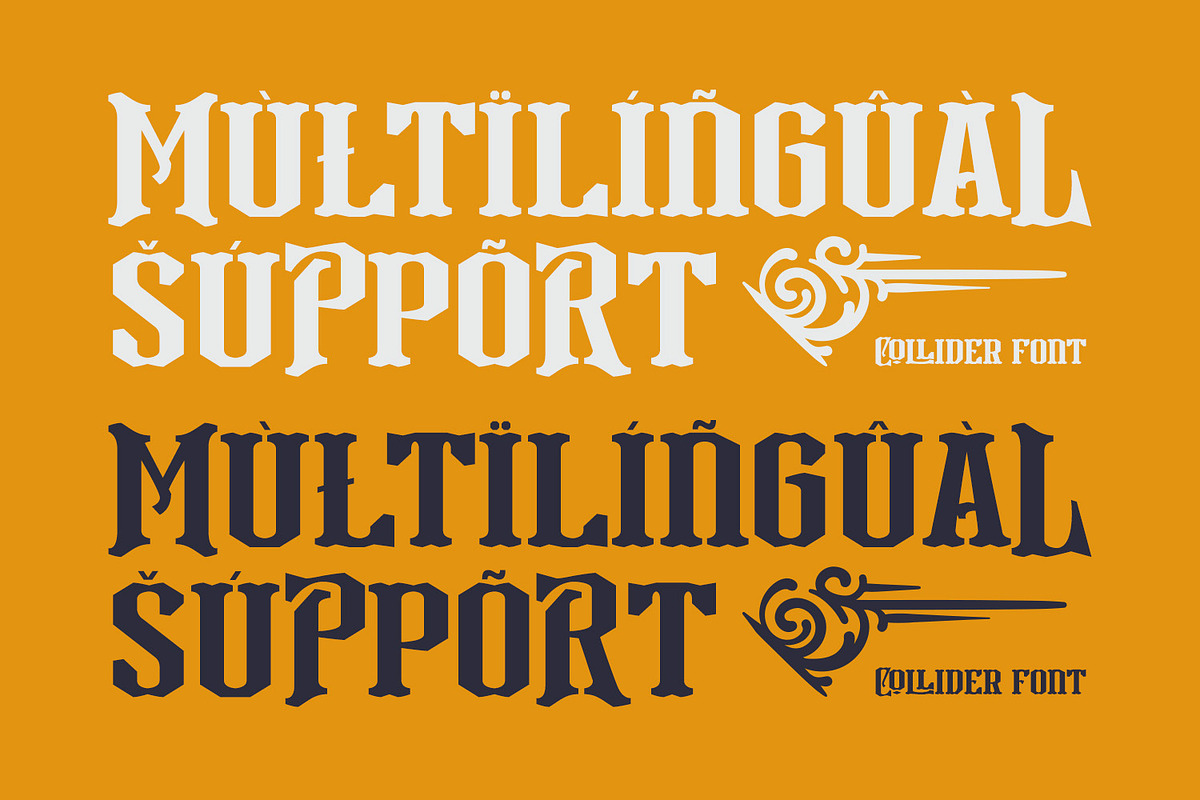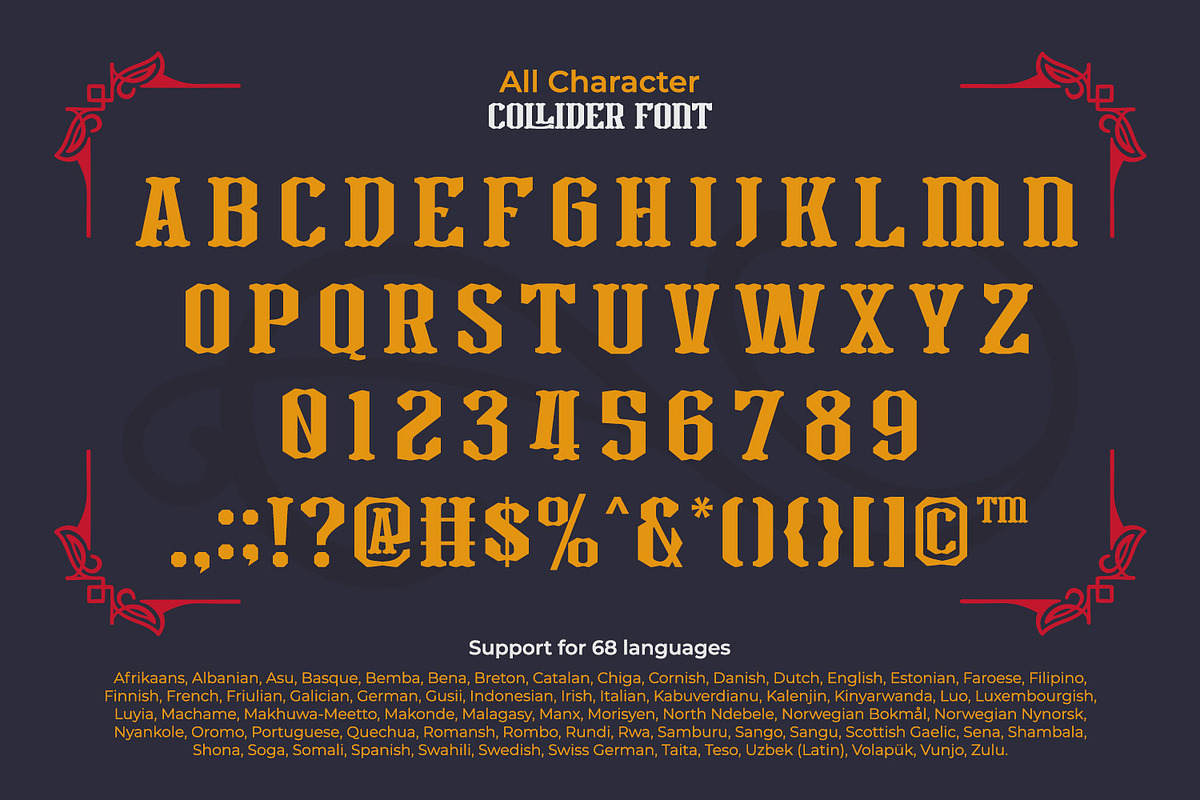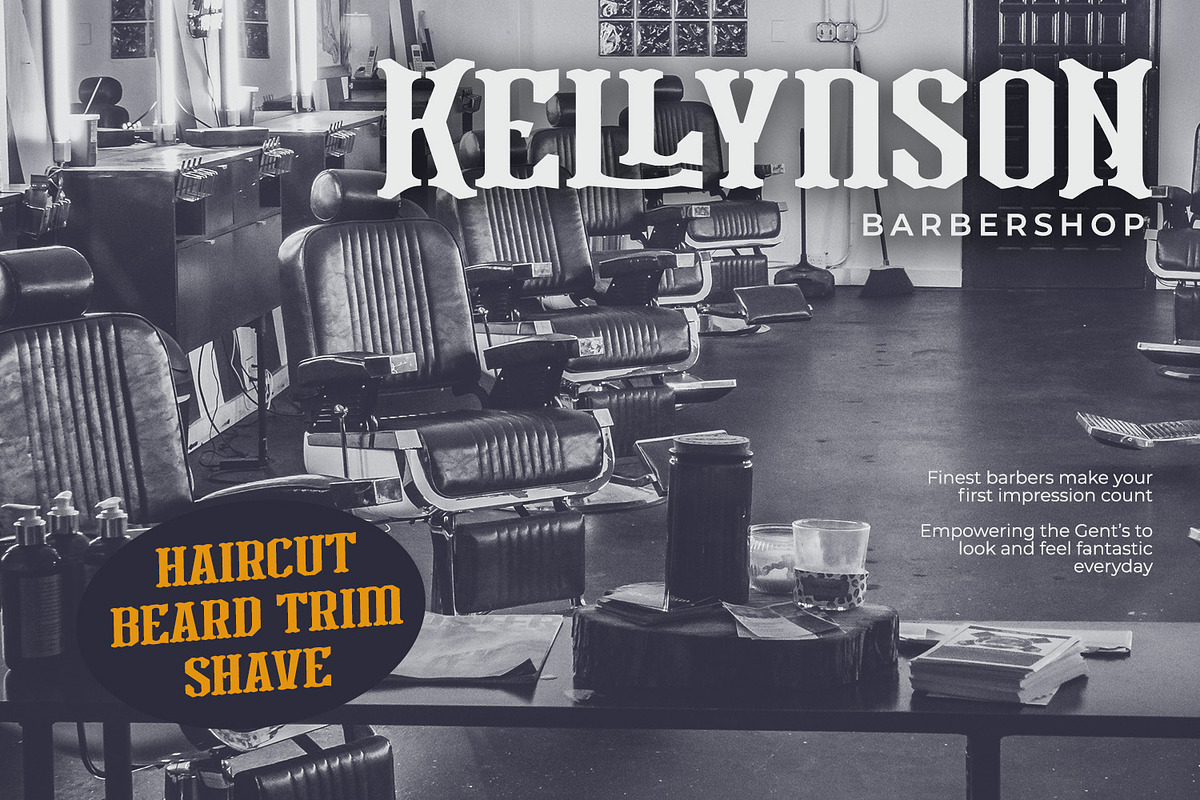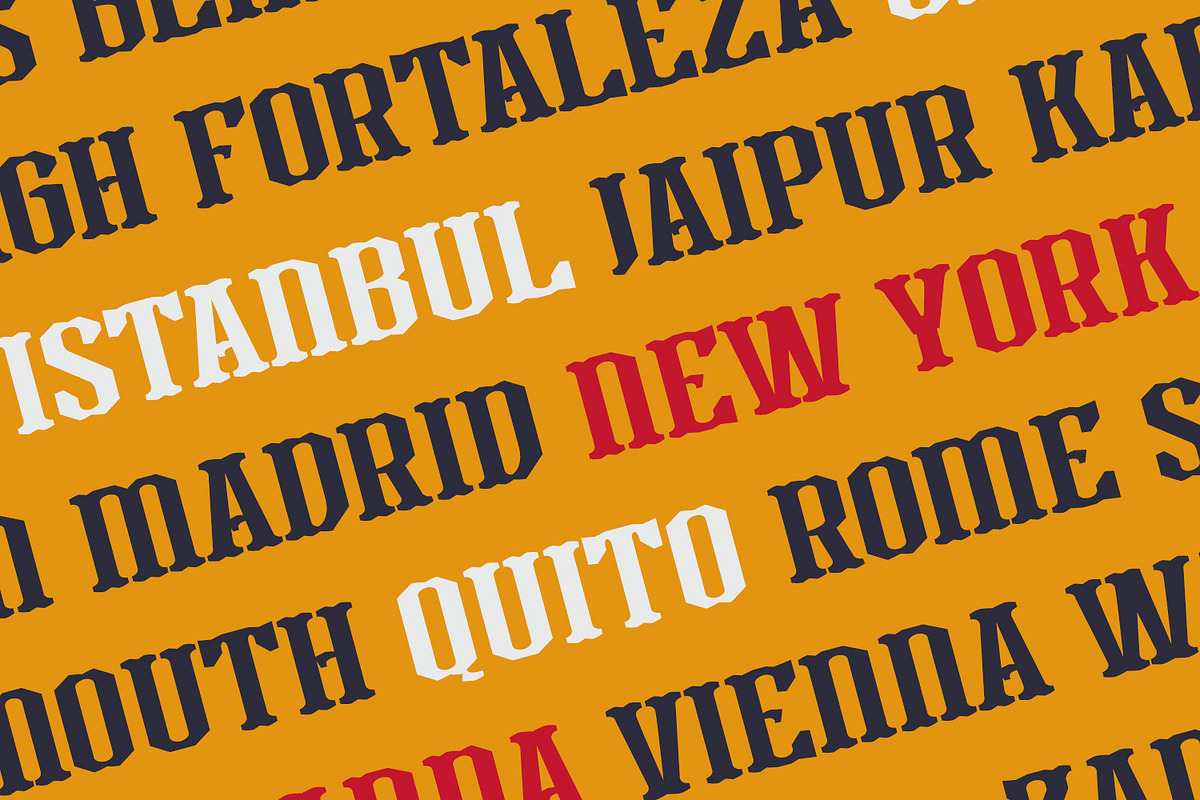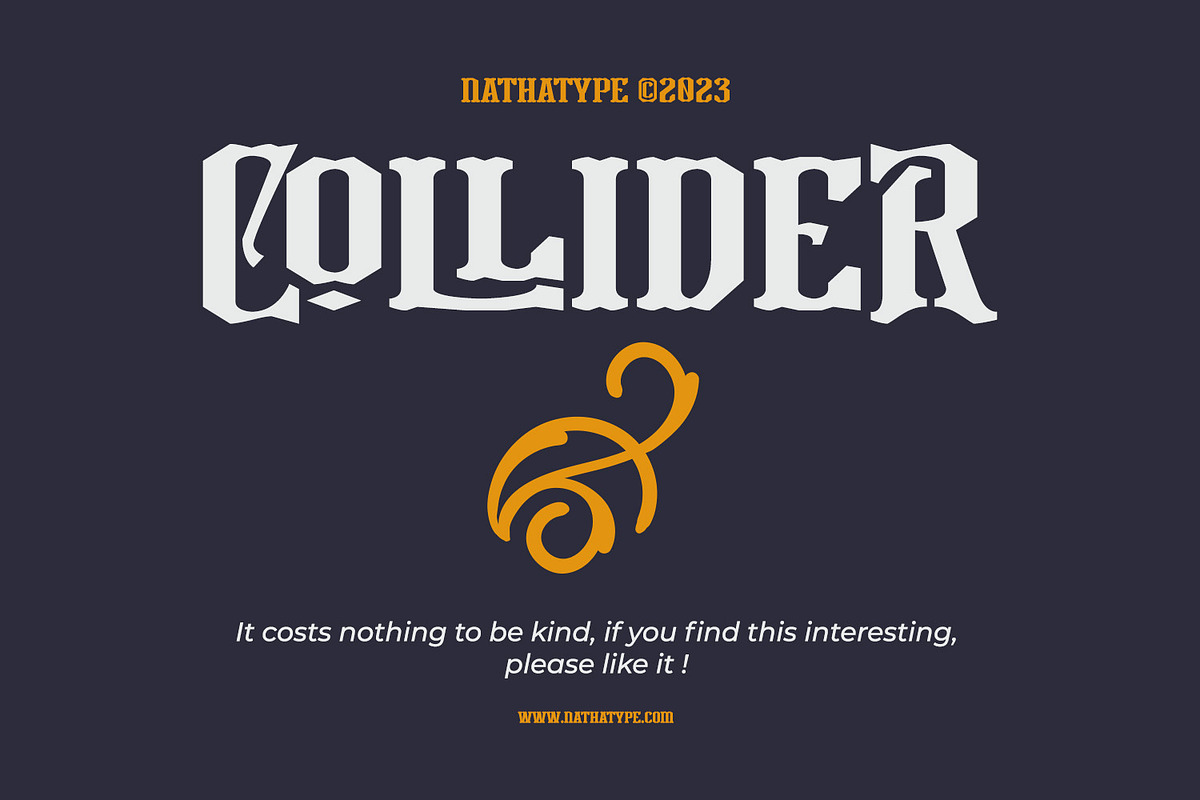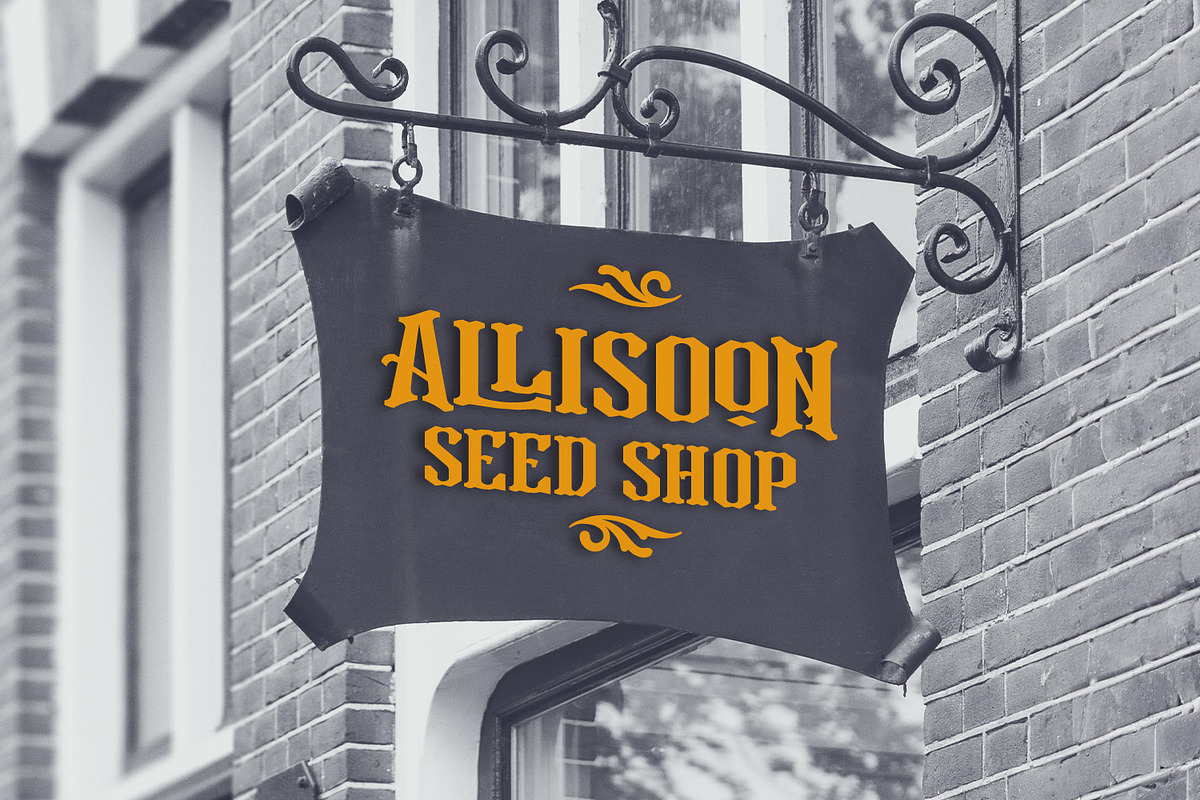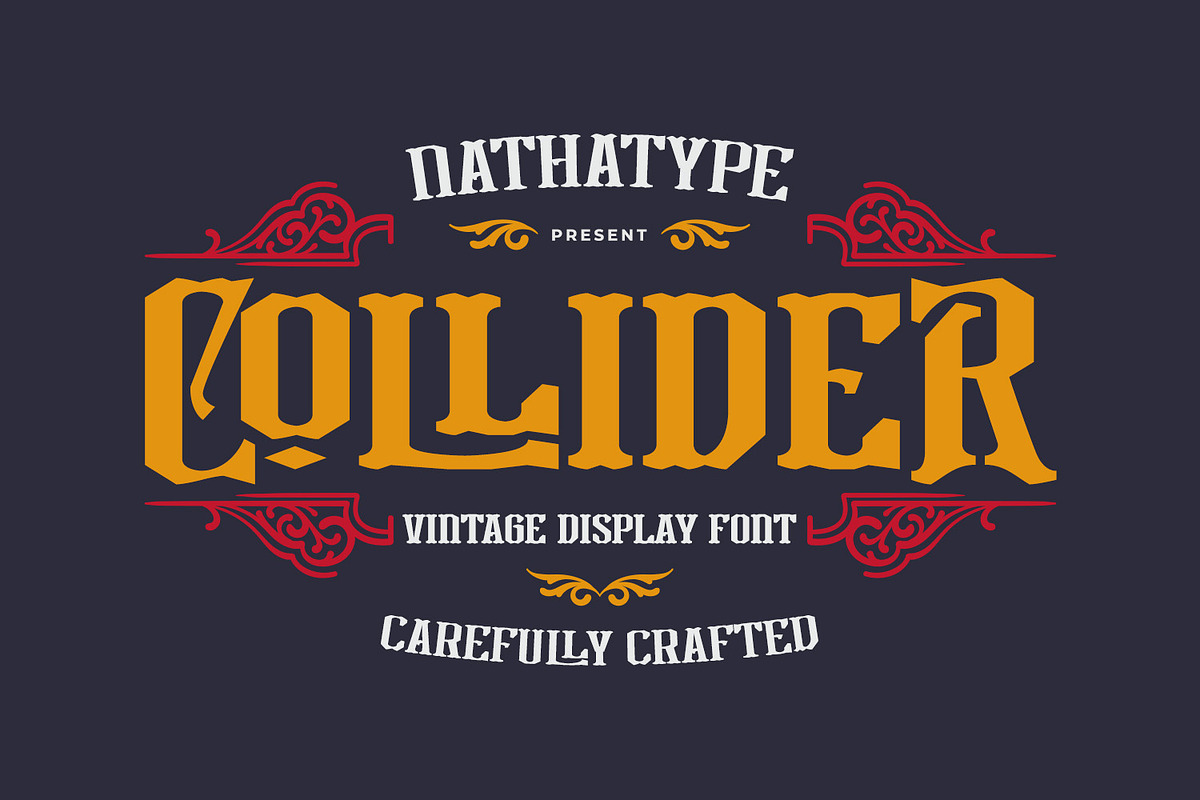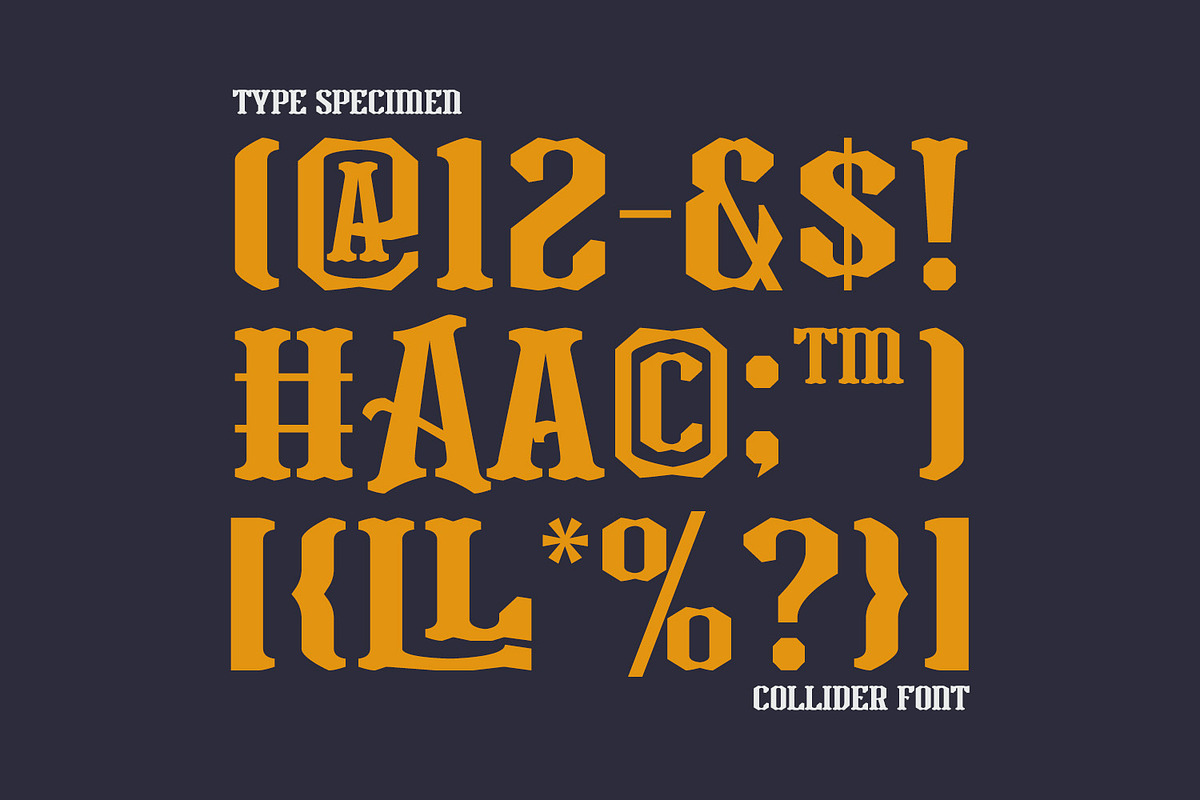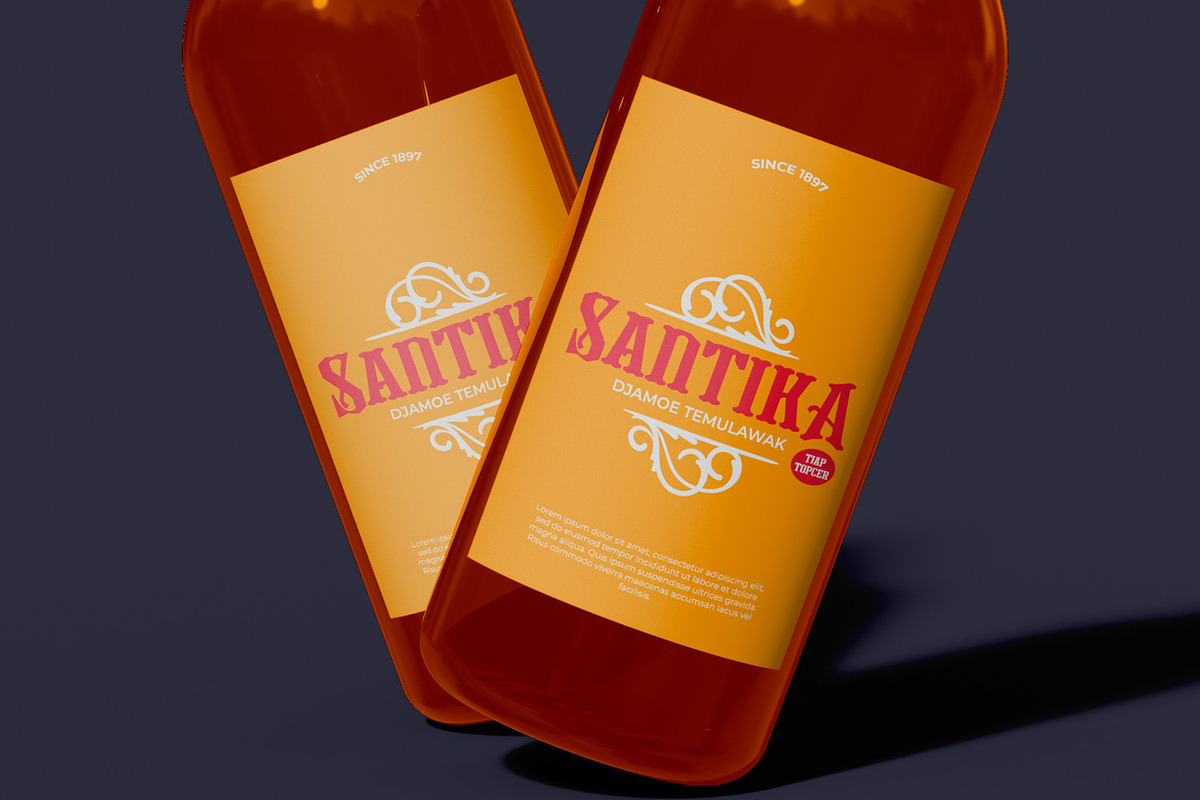
Collider
Prepare to be transported to a bygone era with Collider, an uppercase display font that effortlessly captures the essence of vintage looks. The letterforms of Collider pay homage to the vintage style, offering a nostalgic nod to classic typography. However, what sets it apart is its embrace of asymmetry. The proportions of the letters are deliberately uneven, lending an authentic, handcrafted quality to your text. This irregularity imbues Collider with character and personality, evoking the sense of artisanal craftsmanship.
One of the standout characteristics of Collider is its artistic outlines. Unlike conventional fonts with straight, uniform lines, this font takes a more organic approach. Its outlines are beautifully imperfect, flowing with subtle curves and variations that add a touch of artistic flair to each letterform. This unique design choice gives Collider a distinctive, almost handmade quality that sets it apart in the world of vintage-inspired typefaces. In essence, Collider gives ornaments as a special bonus. Enjoy the features here.
Collider fits in headlines, logos, posters, flyers, branding materials, print media, editorial layouts, and many more. Find out more ways to use this font by taking a look at the font preview.